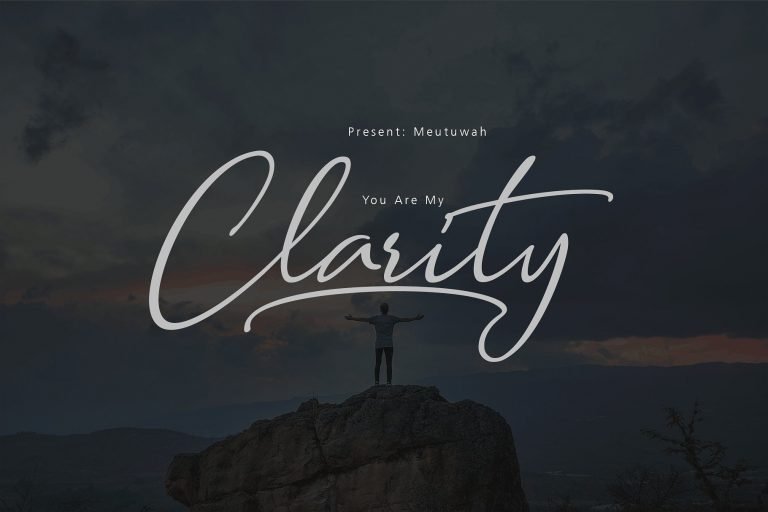
Clarity Script Font
A lovely Handwritten script font. Introducing Clarity Font. Clarity is a stylish calligraphy font that features a varying baseline, smooth line, classic and interesting touch. Can be used for various purposes. With some interesting initial and final forms, the Clarity font suits your needs in creating logos, invitations, cards, product packaging, headers, and whatever you want.